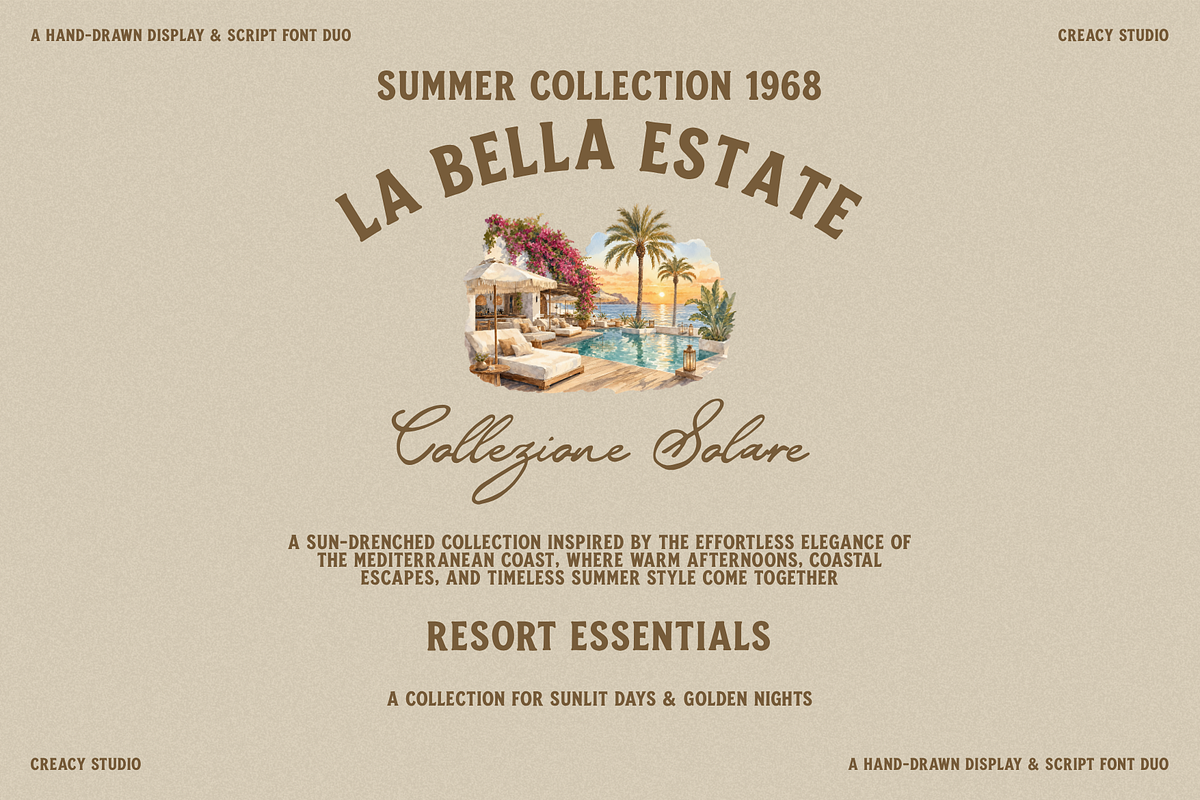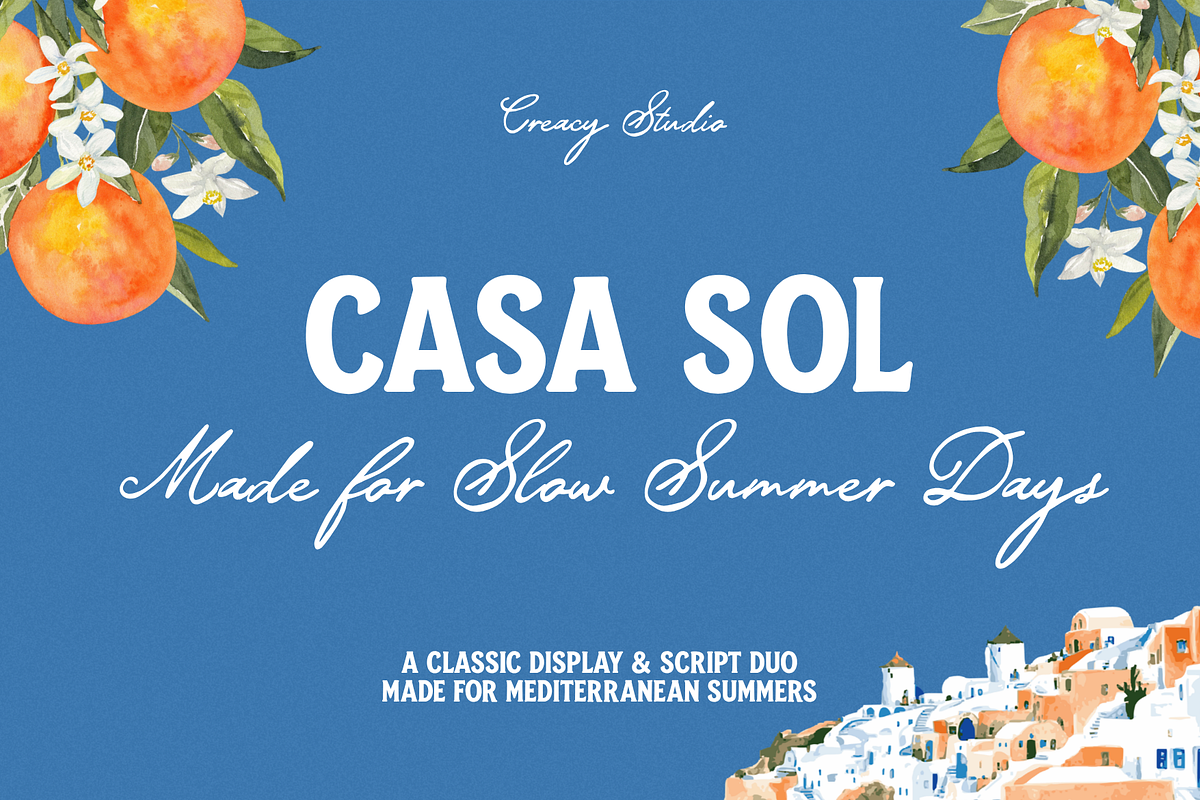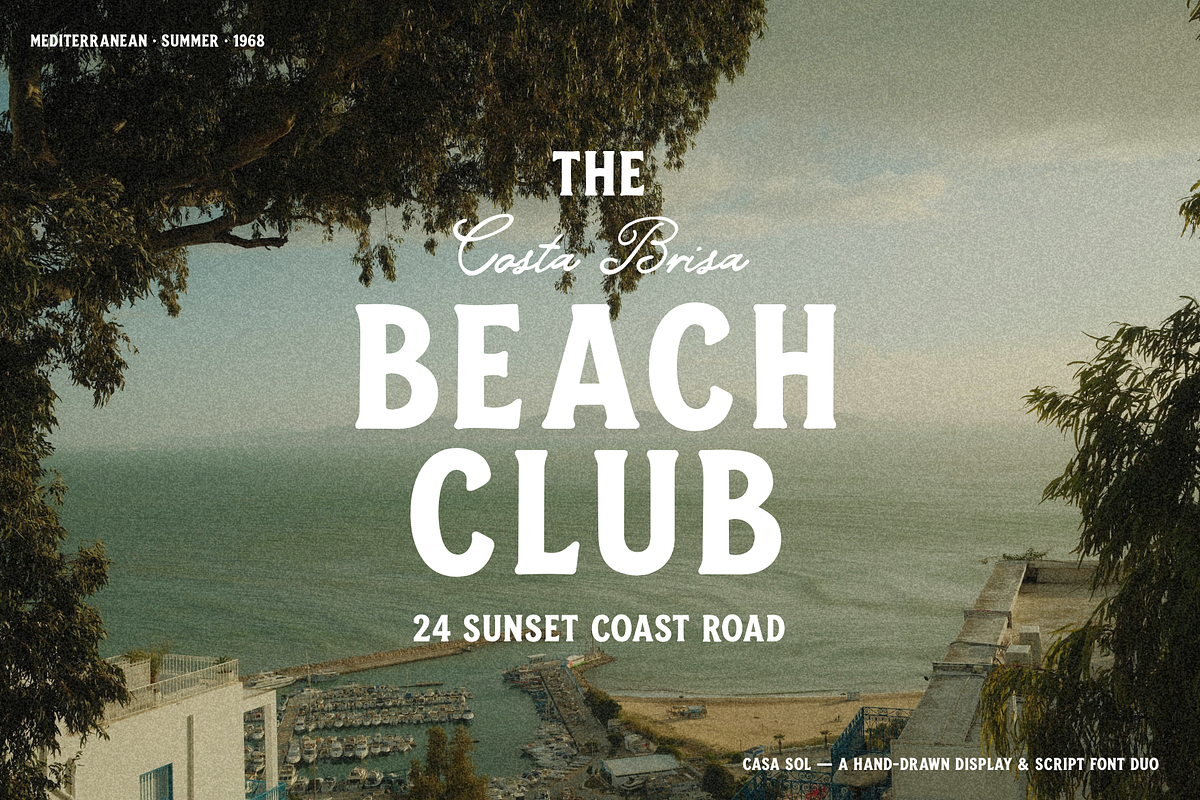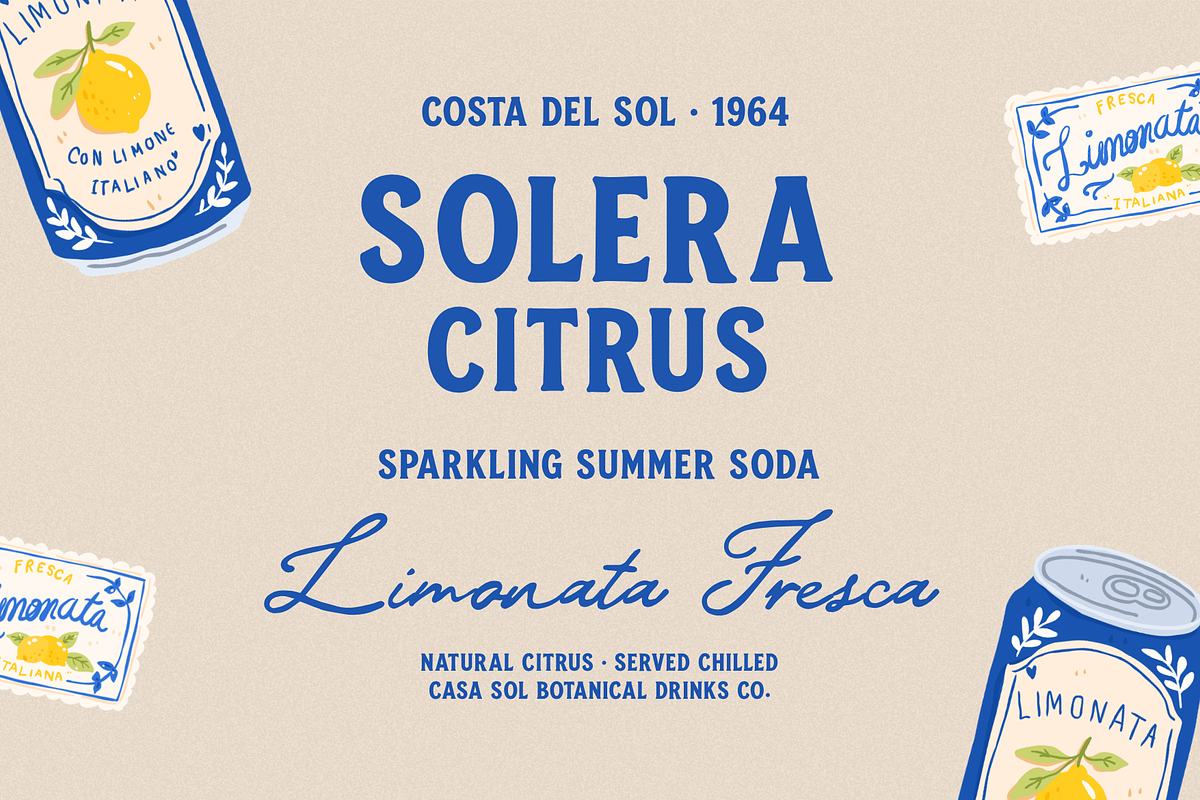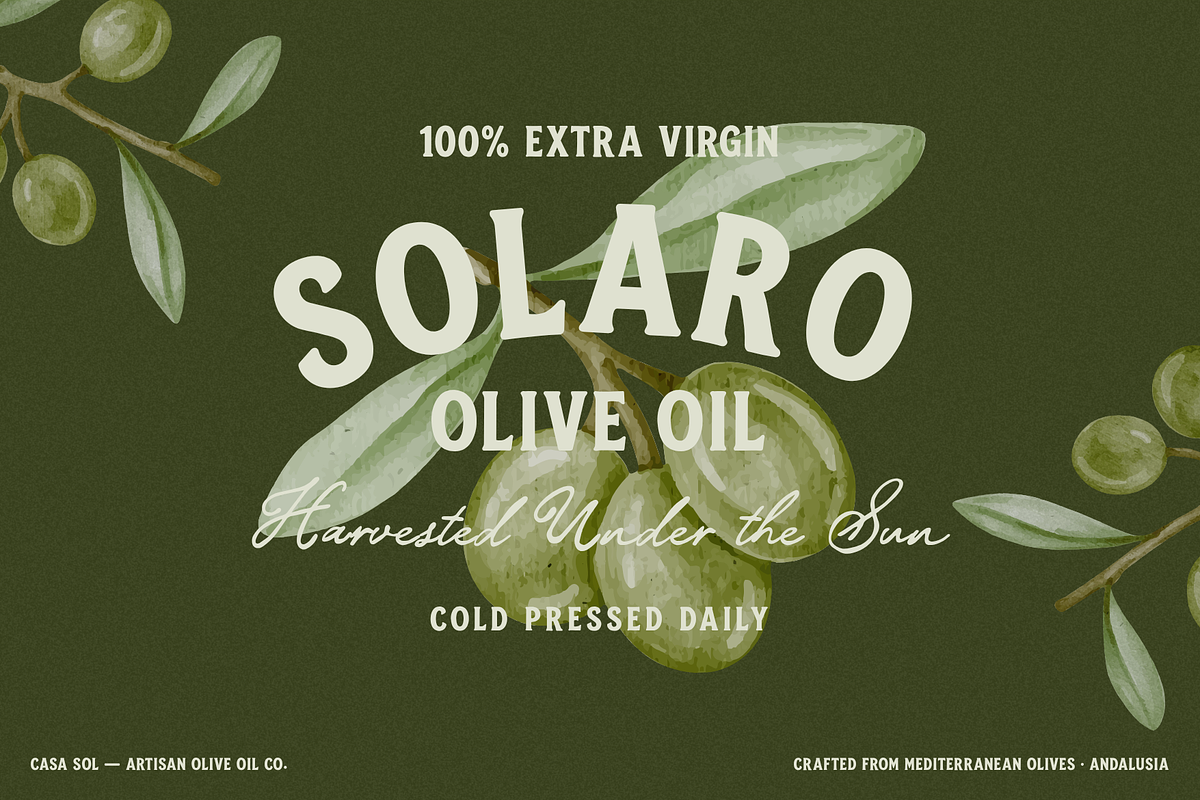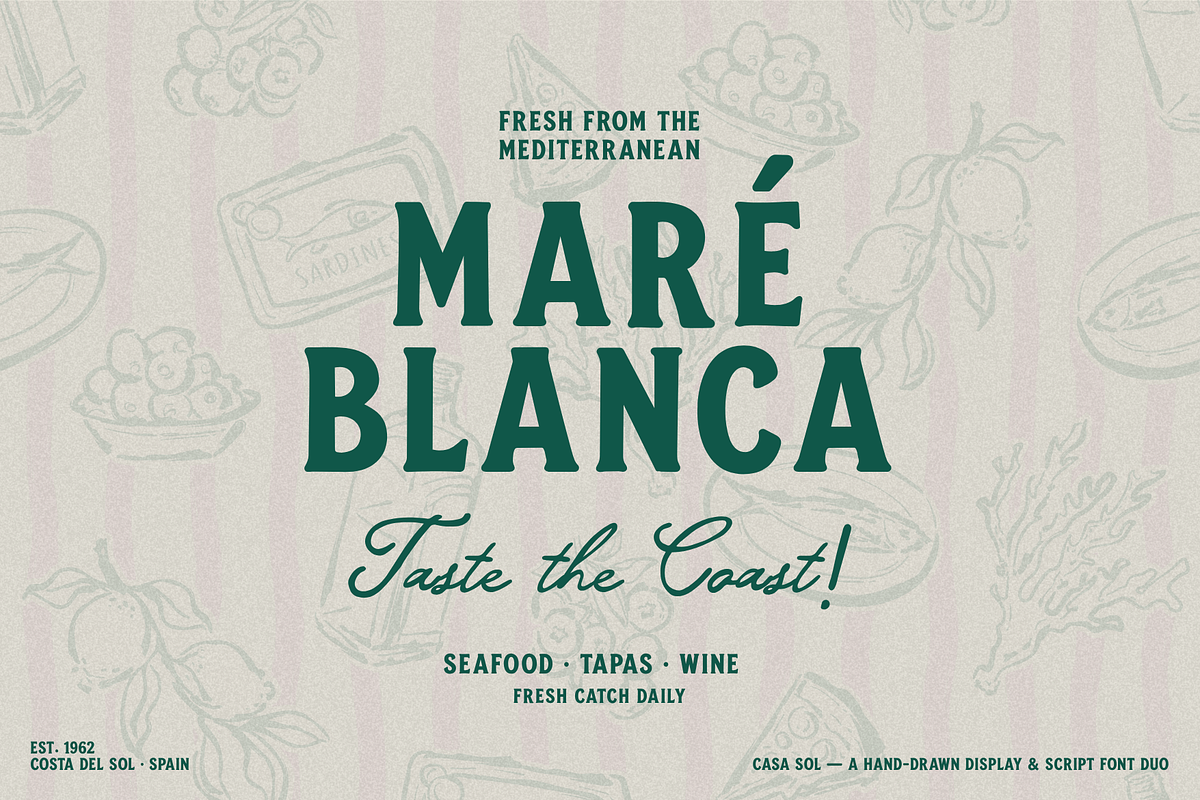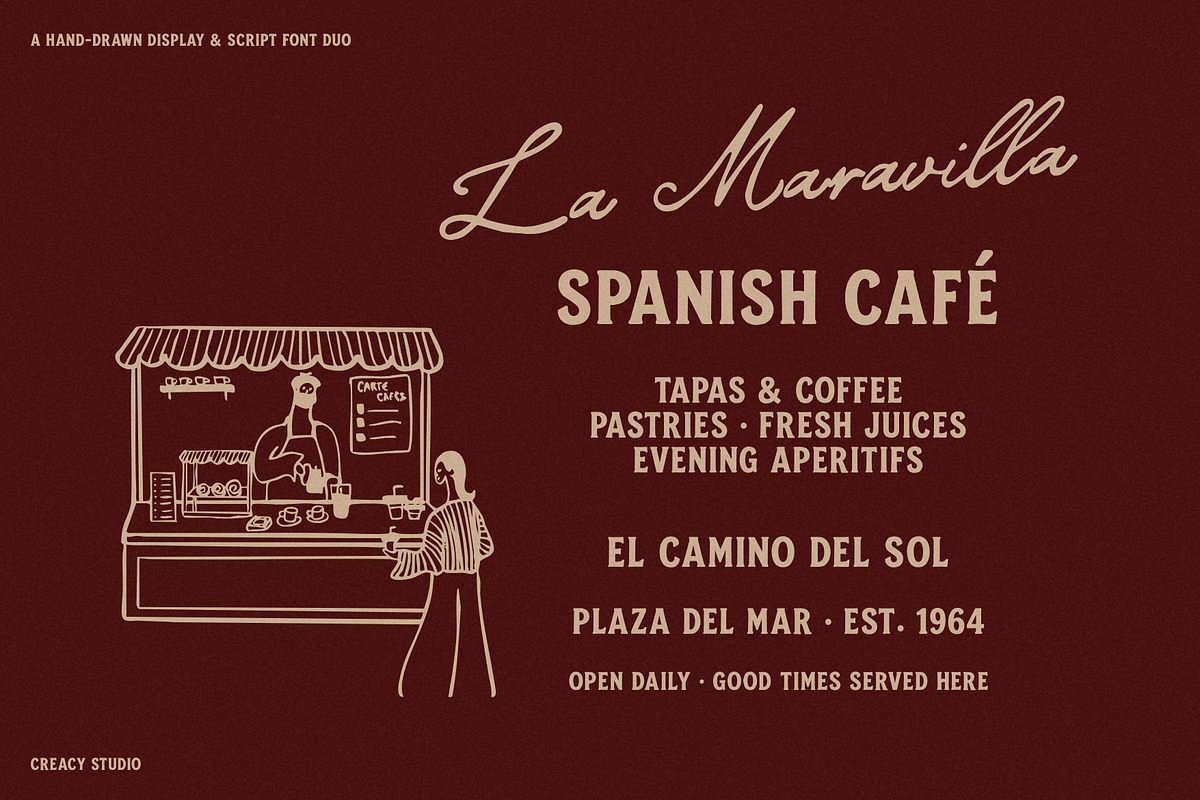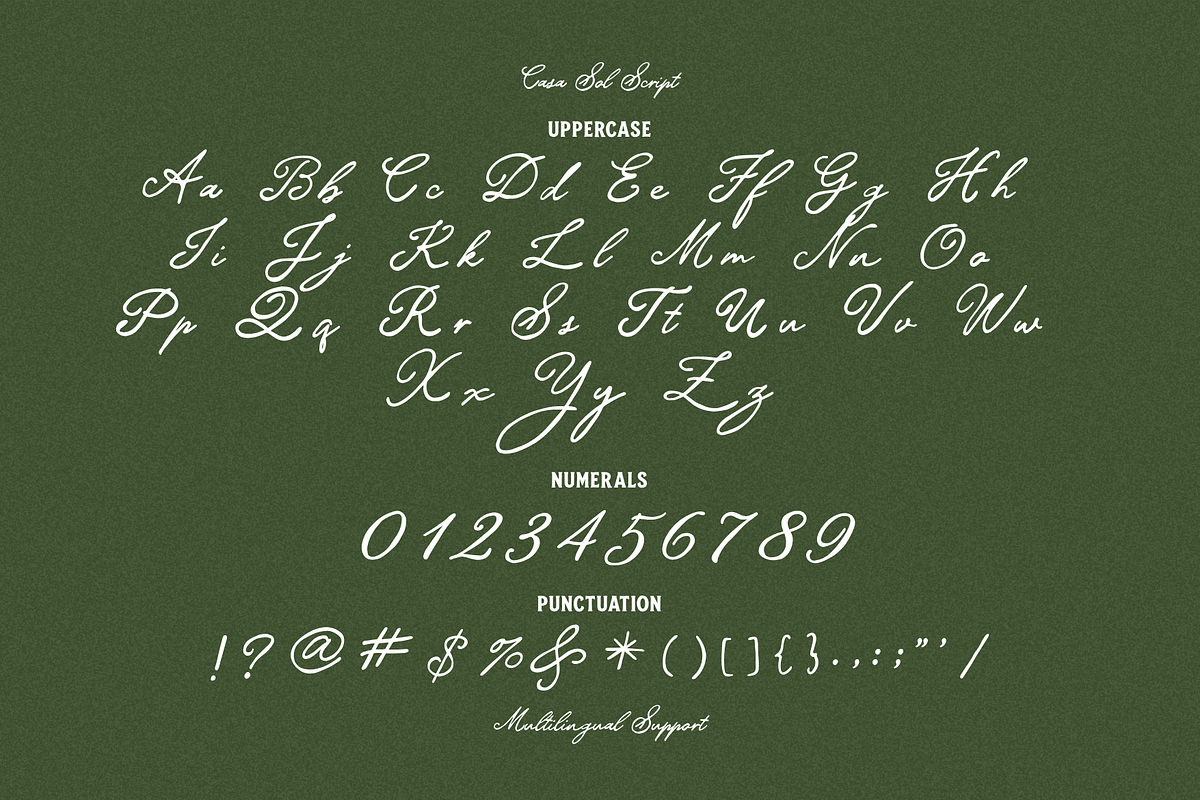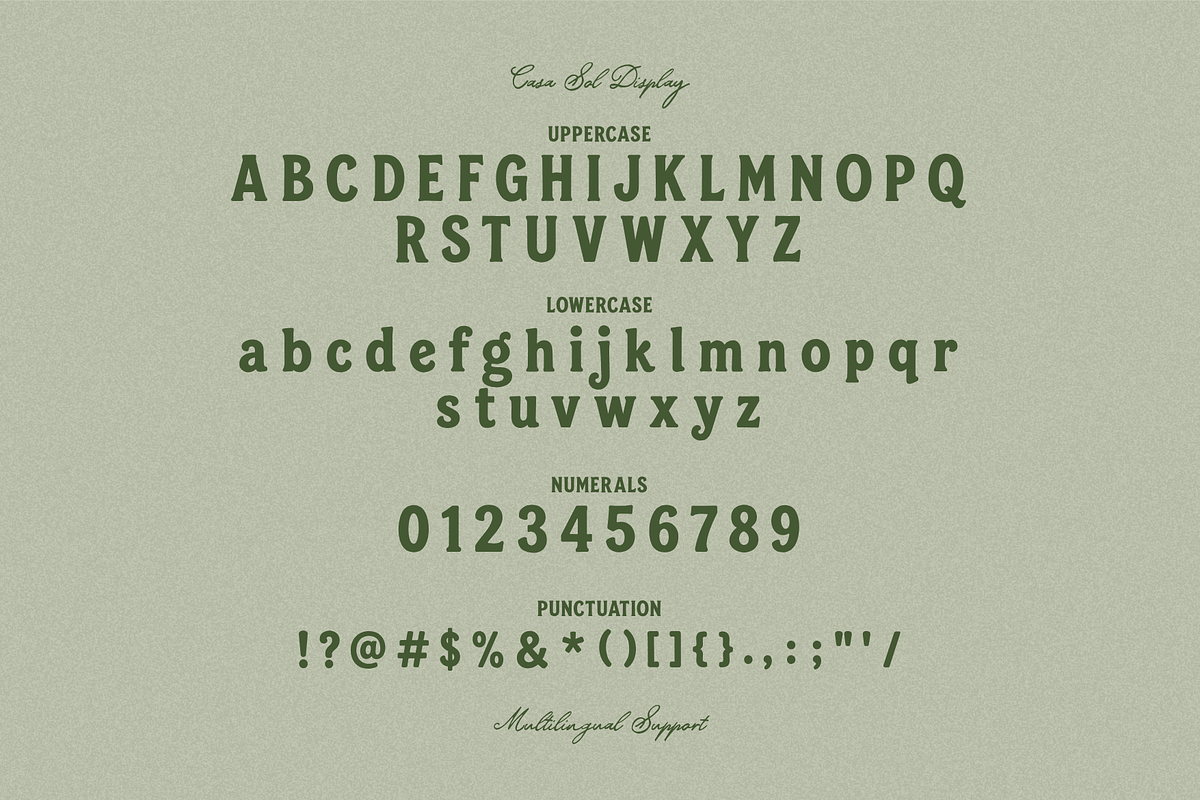
Casa Sol – Mediterranean Font Duo
Casa Sol – Mediterranean Hand-Drawn Display & Script Font Duo
Casa Sol is a hand-drawn display and script font duo inspired by the relaxed charm of Mediterranean summers. The bold display style brings a warm, vintage character with sturdy letterforms and organic details, while the flowing script adds an elegant, personal touch with expressive strokes and graceful curves.
Perfect for branding, logos, packaging, restaurant menus, café graphics, travel projects, posters, apparel, food & beverage labels, resort branding, and social media designs, Casa Sol brings a sun-soaked Mediterranean spirit to every project.
Display & script font duo
Uppercase & lowercase
Bold, hand-drawn display letterforms
Flowing handwritten script with elegant swashes
Versatile pairing for headlines, logos, and supporting text
Ideal for Mediterranean, summer, coastal, travel, café, food, and lifestyle themes